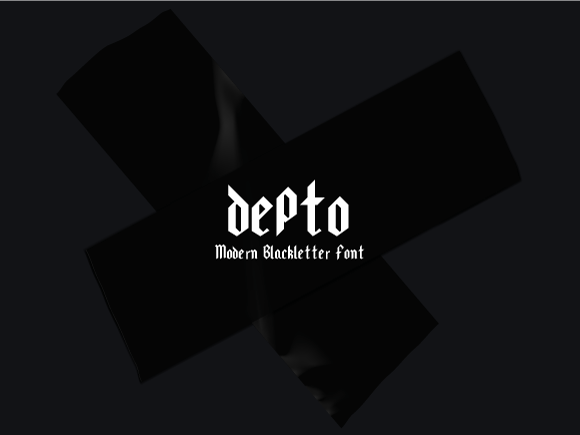
Dive into the Depto Font family, a regal font inspired by the intricate beauty of medieval calligraphy. Created by the masterful DiptoDesign, Depto Blackletter is an exquisite piece of art that evokes a sense of timeless elegance.
Step back in time as you explore the intricate details and flourishes that adorn each character, paying tribute to the artistry of ancient scribes. Depto's ornate letterforms dance across the page, beckoning you to create designs that exude sophistication and charm.
Indulge in a font that transcends time, seamlessly blending the essence of the past with the dynamism of the present. Whether you're a seasoned designer or just starting your creative journey, Depto is your gateway to captivating designs that leave a lasting impression.
From vintage-inspired posters to modern logos, Depto adapts effortlessly to your creative vision. Its versatility knows no bounds, making it the perfect choice for a wide range of projects. Unleash your imagination and let Depto guide you towards design excellence.
But Depto is more than just a font—it's an experience. Dive into a world of enchantment as you craft designs that speak to your soul. Let Depto be your muse, inspiring you to create artwork that captures the essence of your dreams.